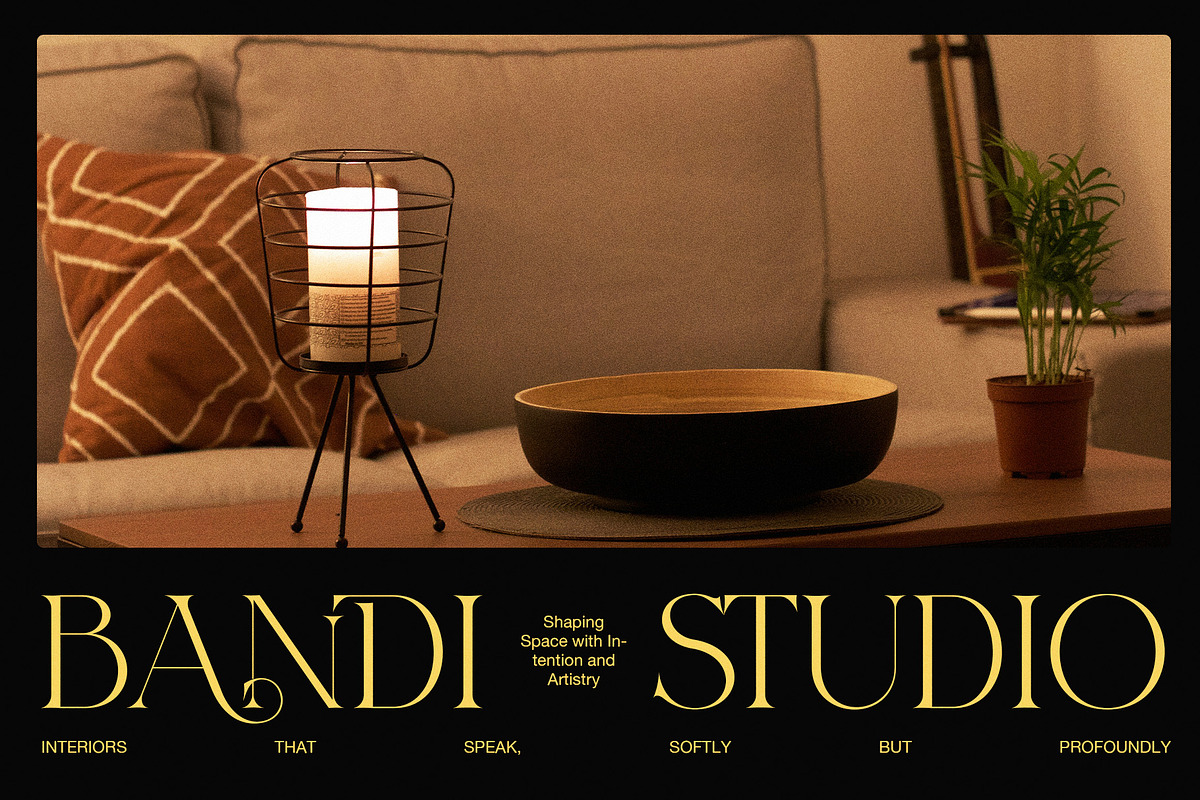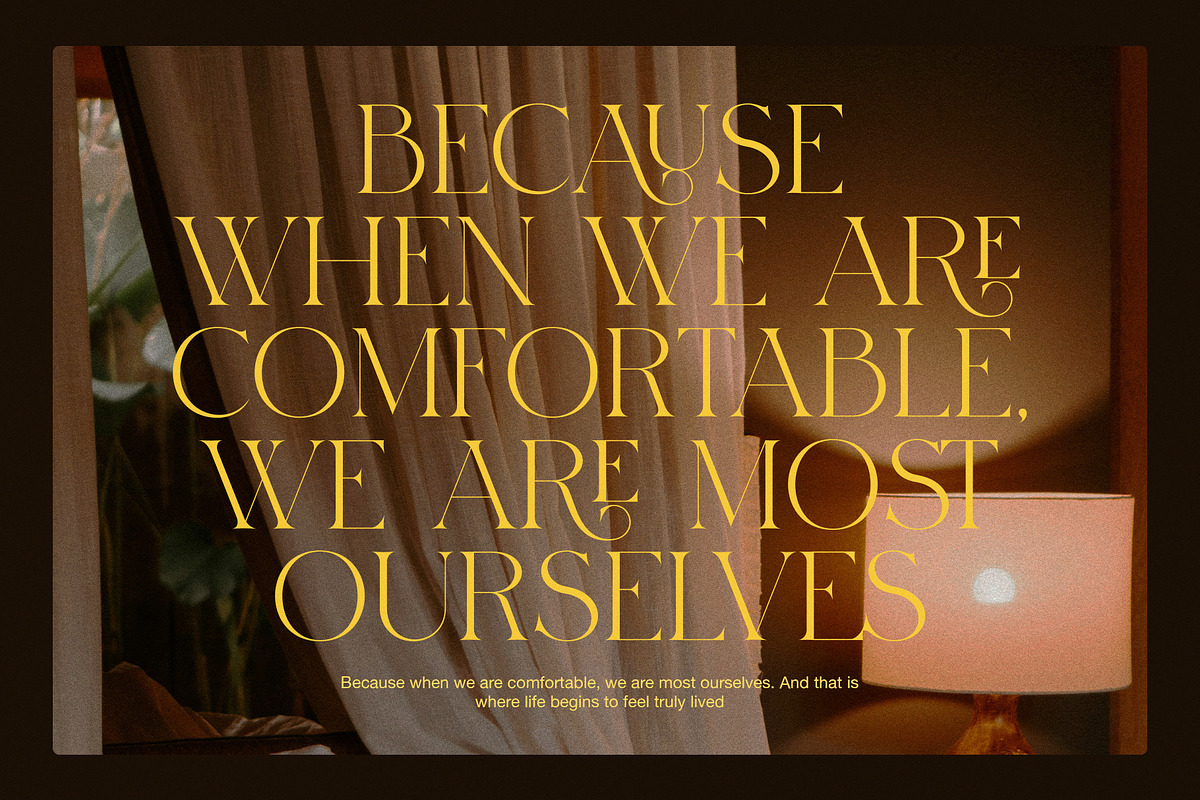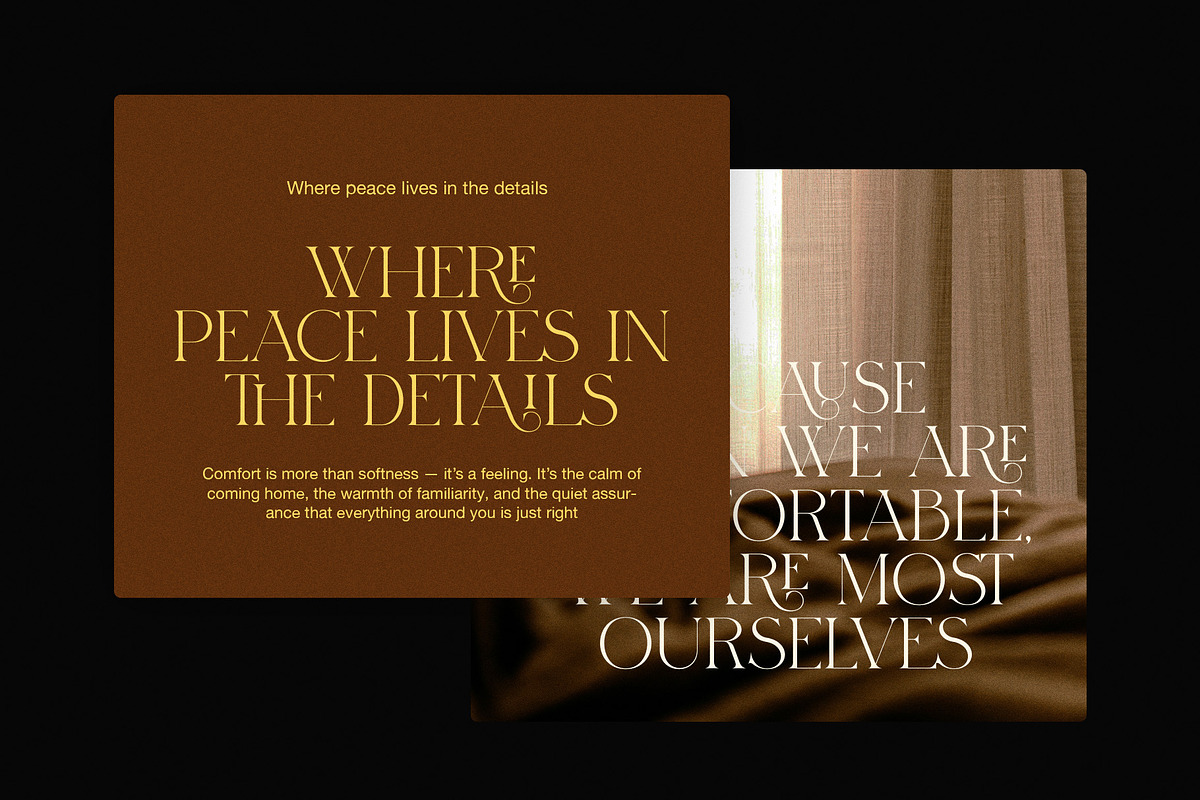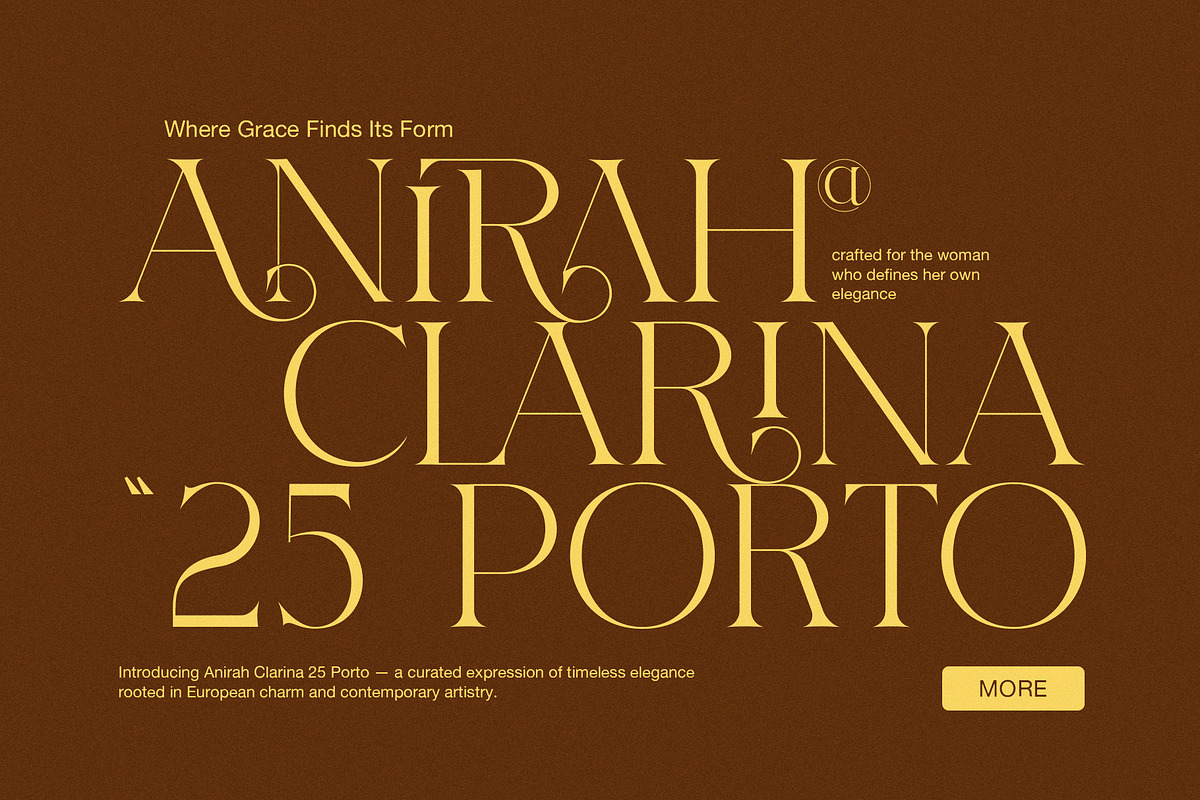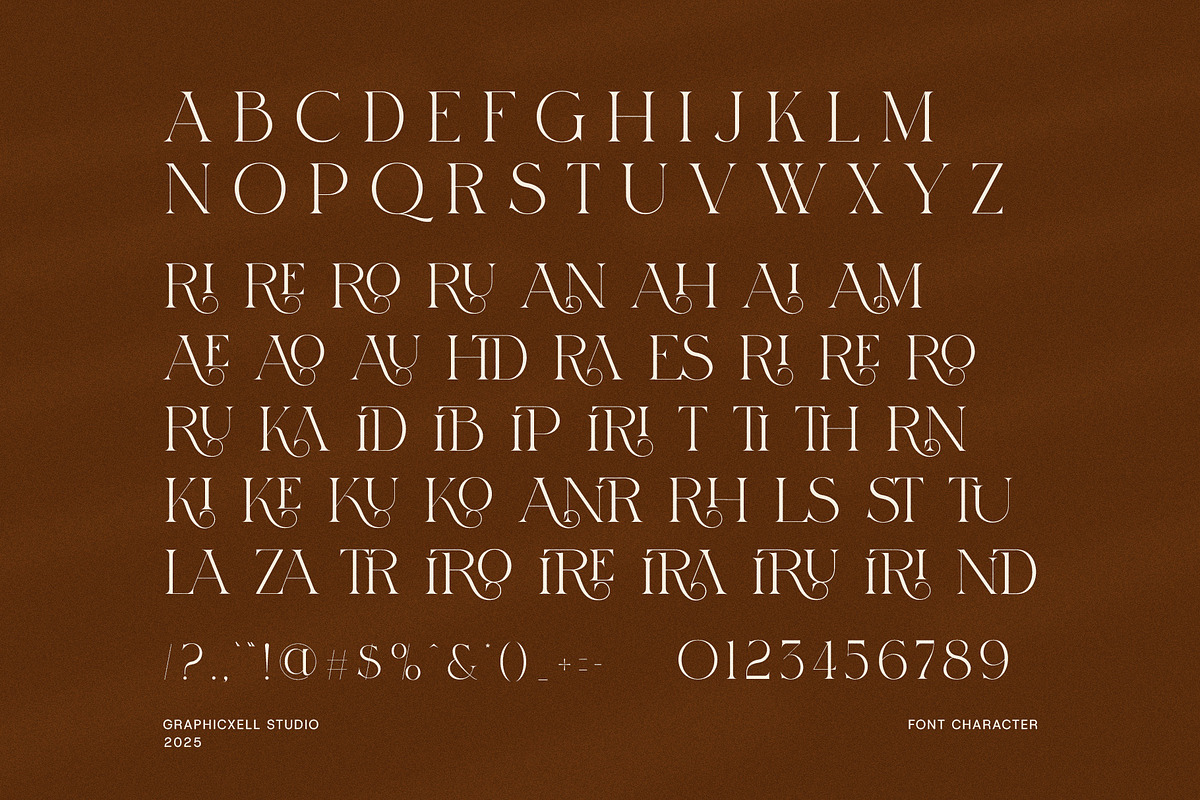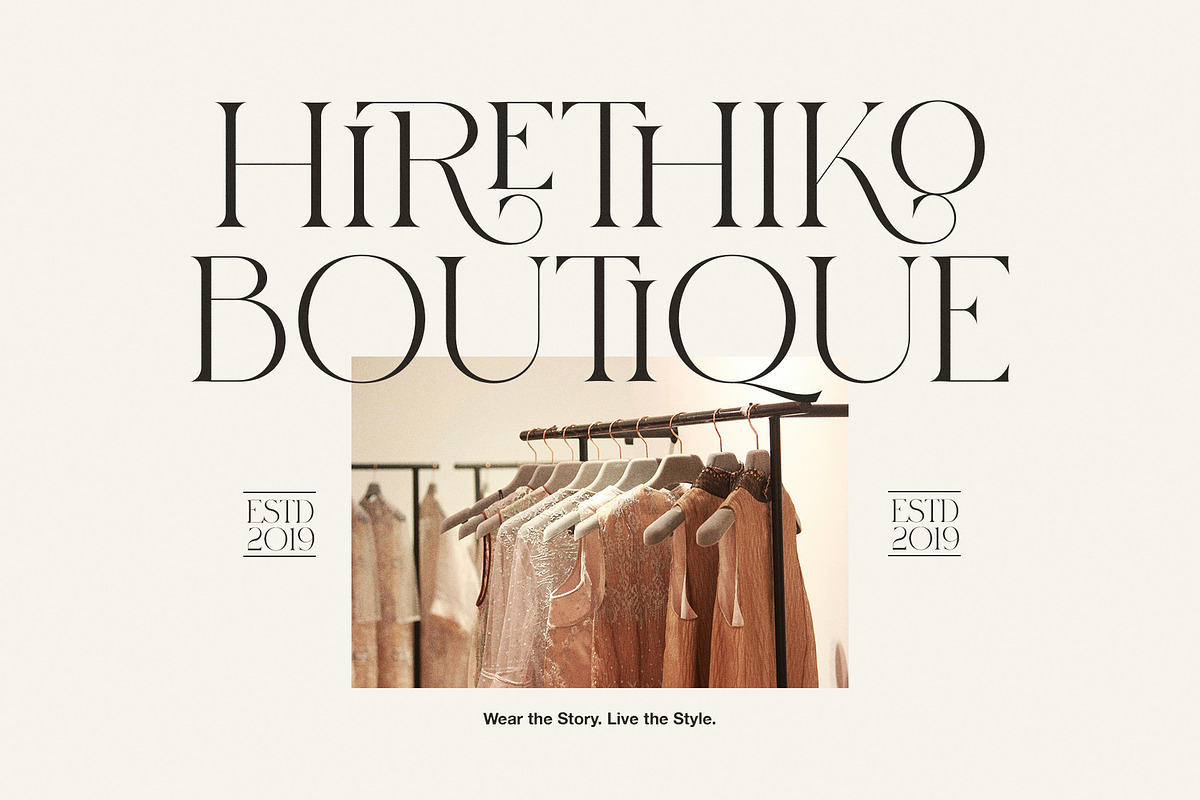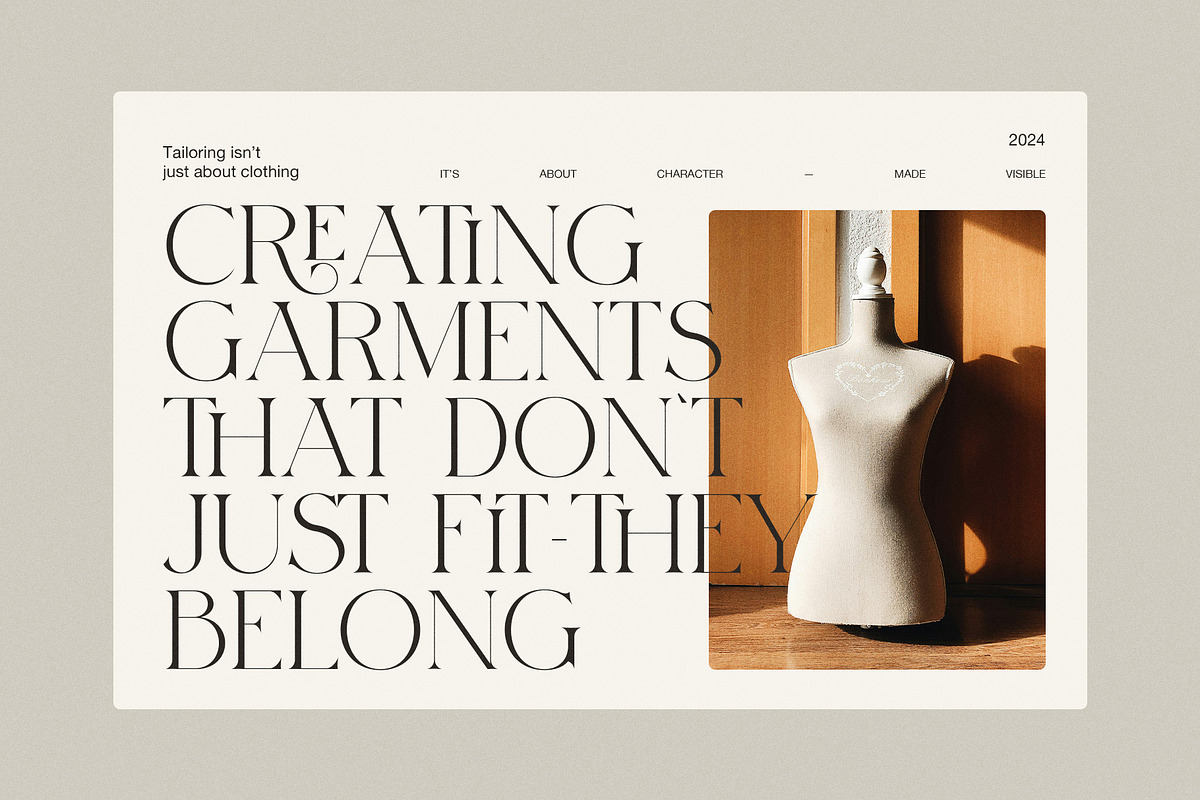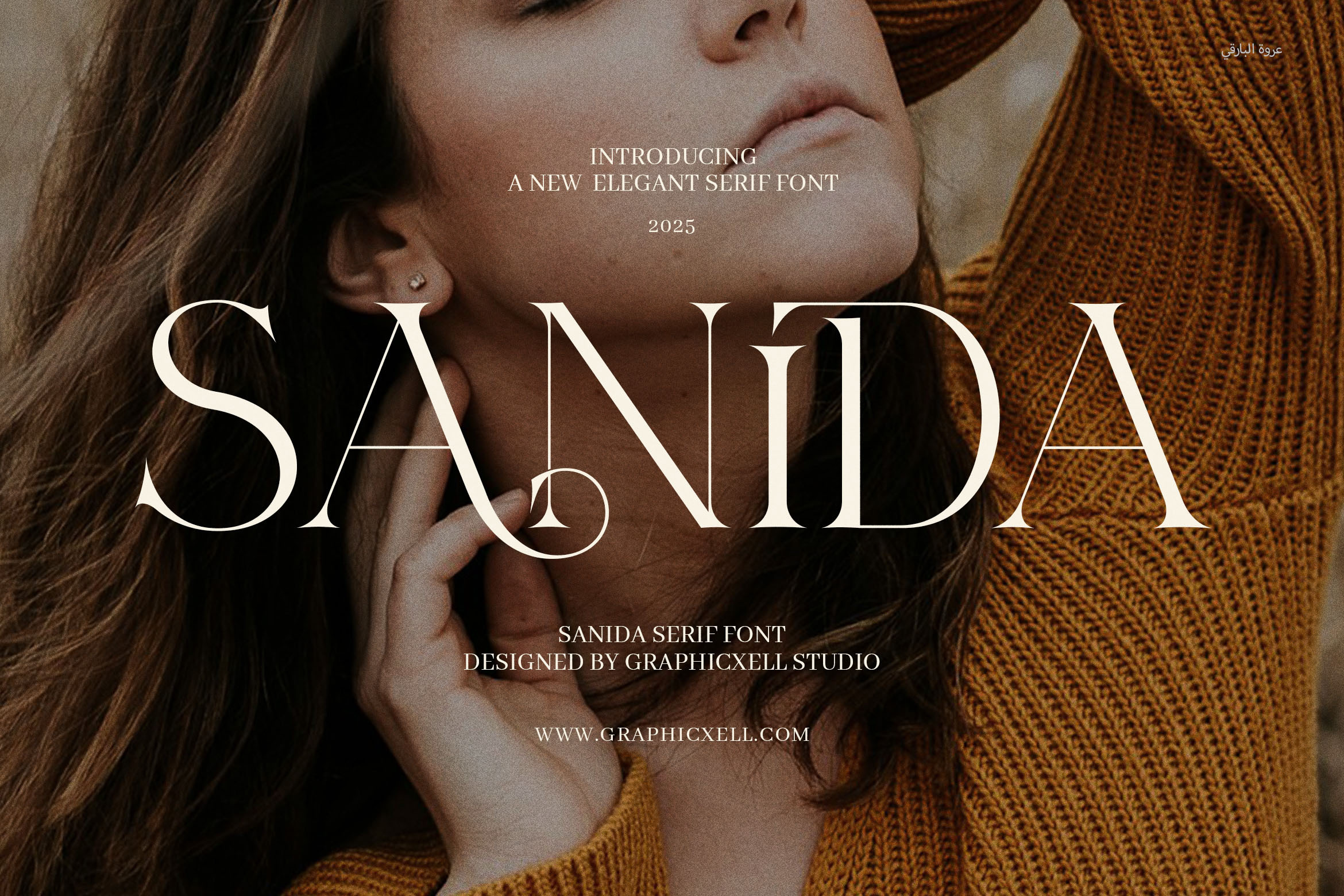
Sanida Elegant Serif Font
Looking for a font that combines luxury with clarity? Sanida Elegant Serif Font is the perfect choice. Designed with a balanced, sophisticated structure, this serif font brings modern elegance to every project. Whether you're creating a logo, designing a website, or building your brand identity, Sanida delivers both style and readability.
With its thick, bold lines and smooth curves, Sanida stands out while maintaining a clean and professional look. It’s ideal for high-end branding, editorial layouts, packaging, and more. Plus, it includes functional ligatures that add unique personality without distracting from the overall design.
Why choose Sanida Elegant Serif?
Modern and clean: Blends contemporary aesthetics with classic serif roots
High readability: Perfect for print and digital use, from magazines to mobile screens
Stylish ligatures: Enhances your text with subtle, creative connections between letters
Versatile use: Great for logos, packaging, advertisements, business cards, and web design
Professional appeal: Elevates your brand with a refined, polished look
Bold presence: The strong serif details create a lasting impression
Moreover, this font is easy to pair with minimalist or script fonts, making it flexible for various creative needs. Whether you're designing for a boutique, a food product, a luxury item, or a lifestyle blog, Sanida brings a touch of elegance and strength.
In short, Sanida Elegant Serif Font is more than just a typeface—it's a design solution. It adds beauty, professionalism, and sophistication to every word. With the right balance of modern flair and traditional style, it helps your message stand out effortlessly.